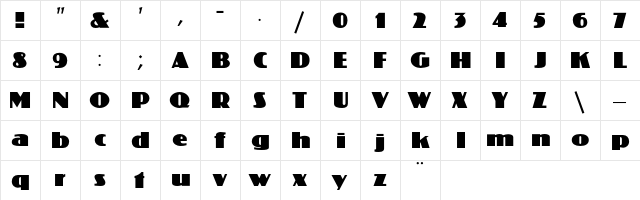
FFD Koloss Regular
Design Context for FFD Koloss Typeface
FFD Koloss is a composed and adaptable typeface that performs quietly and consistently across a wide range of design contexts.